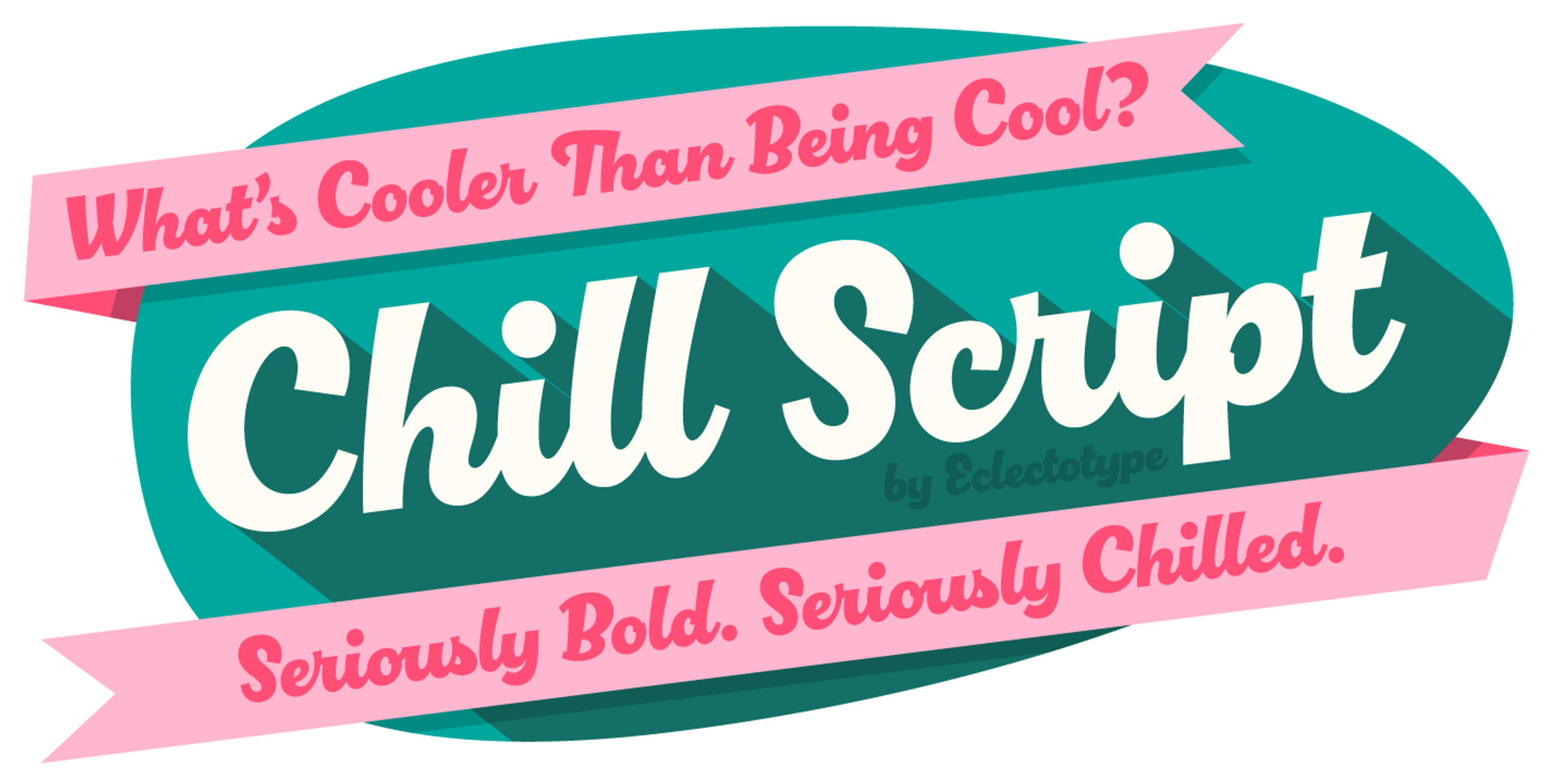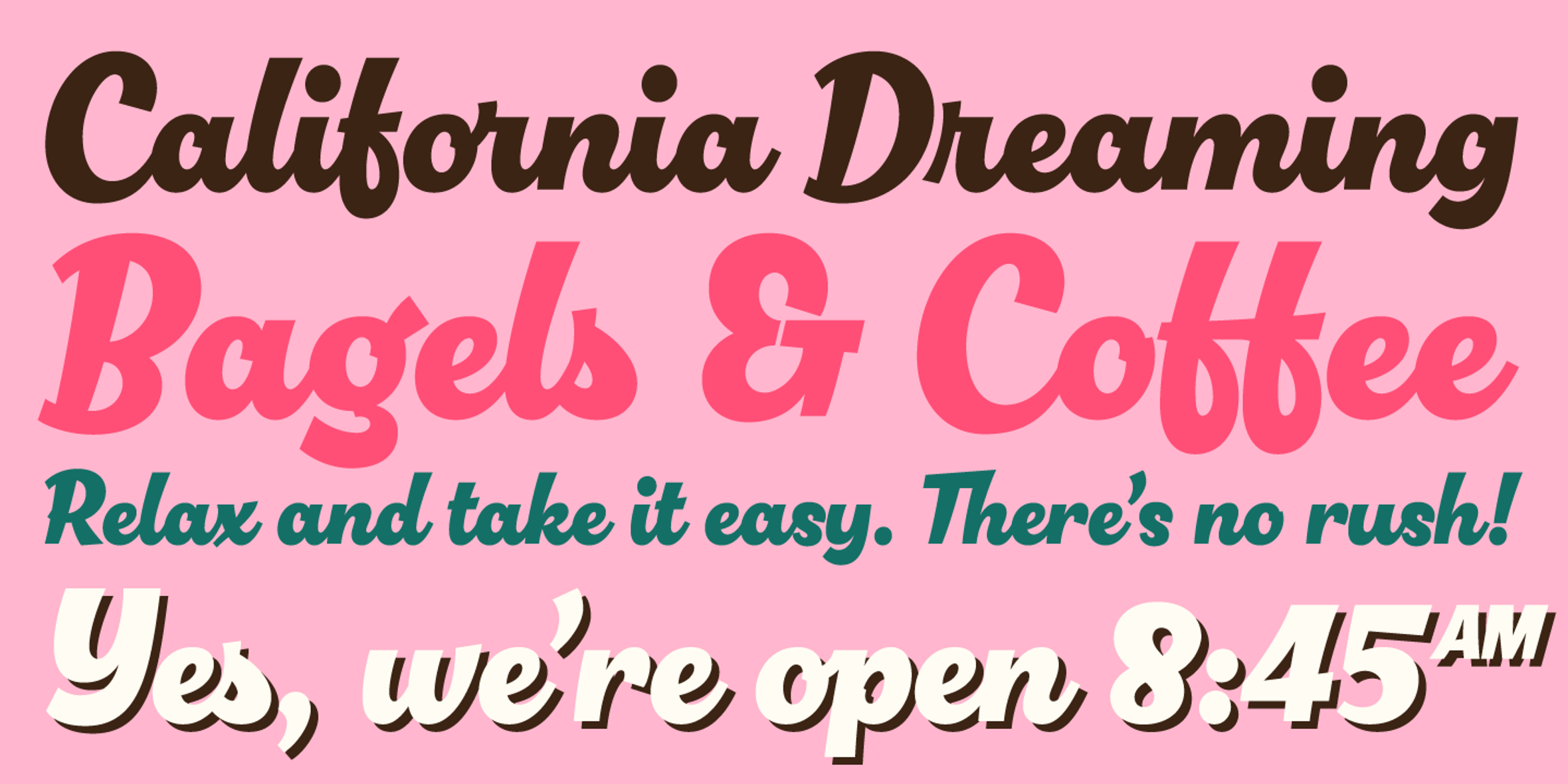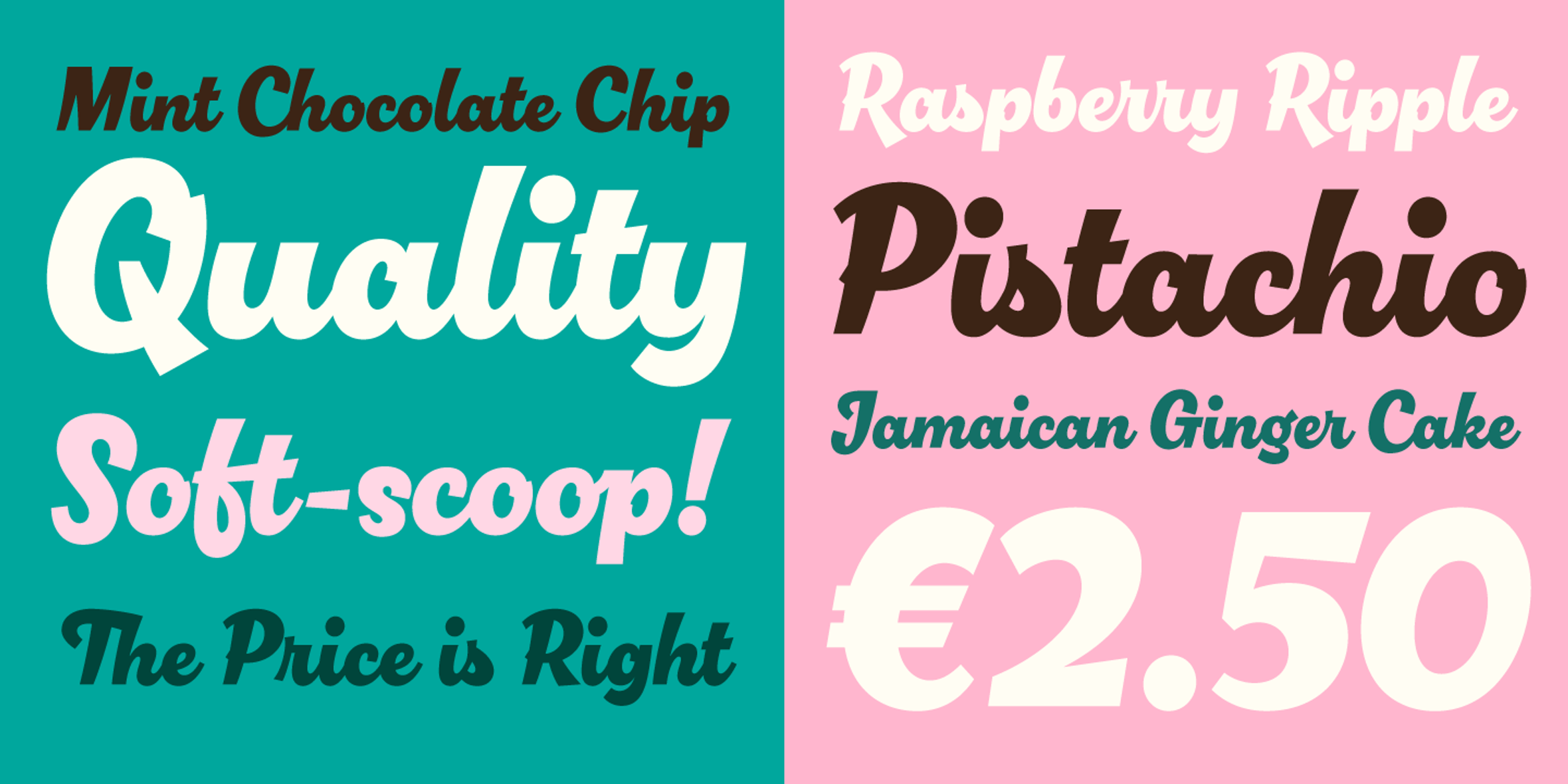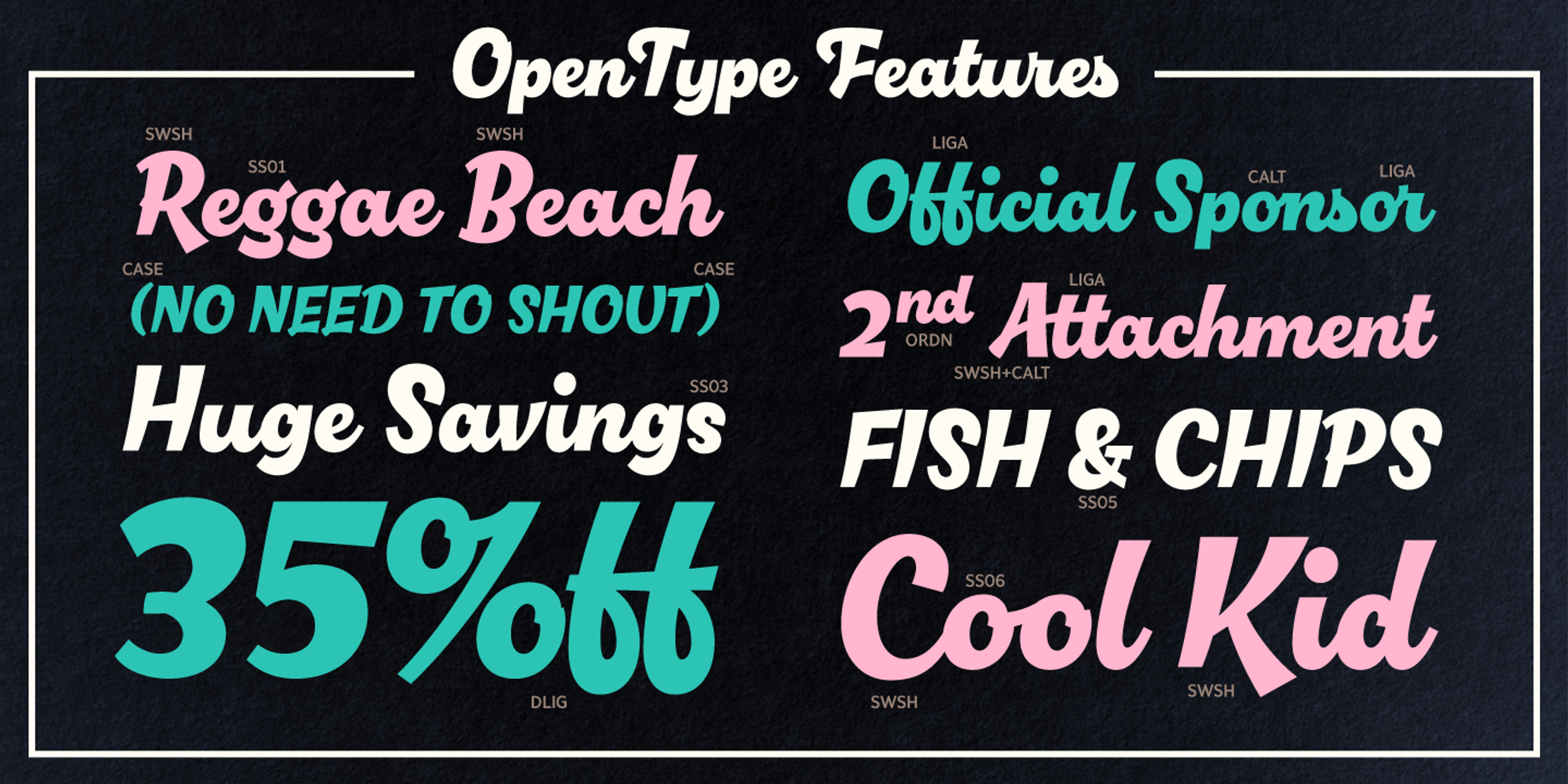
Chill Script Font
Chill Script
Chill Script is a seriously relaxed typeface that eschews any brush influence in favor of warmth from not being rigidly constructed. So, if you are bored of skinny scripts, look at this sans serif script with a jovial top-heaviness. Graphic designers will know that Chill Script is absolutely the right choice for any combination of gelato branding, trendy magazines, clothing labels, party invitations, and even coffee packaging. Anywhere a little chill and script are needed, choose Chill Script.
- Common Ligatures
- Discretionary Ligatures
- Ordinal Numerals
- Stylistic Alternates
- Swashes